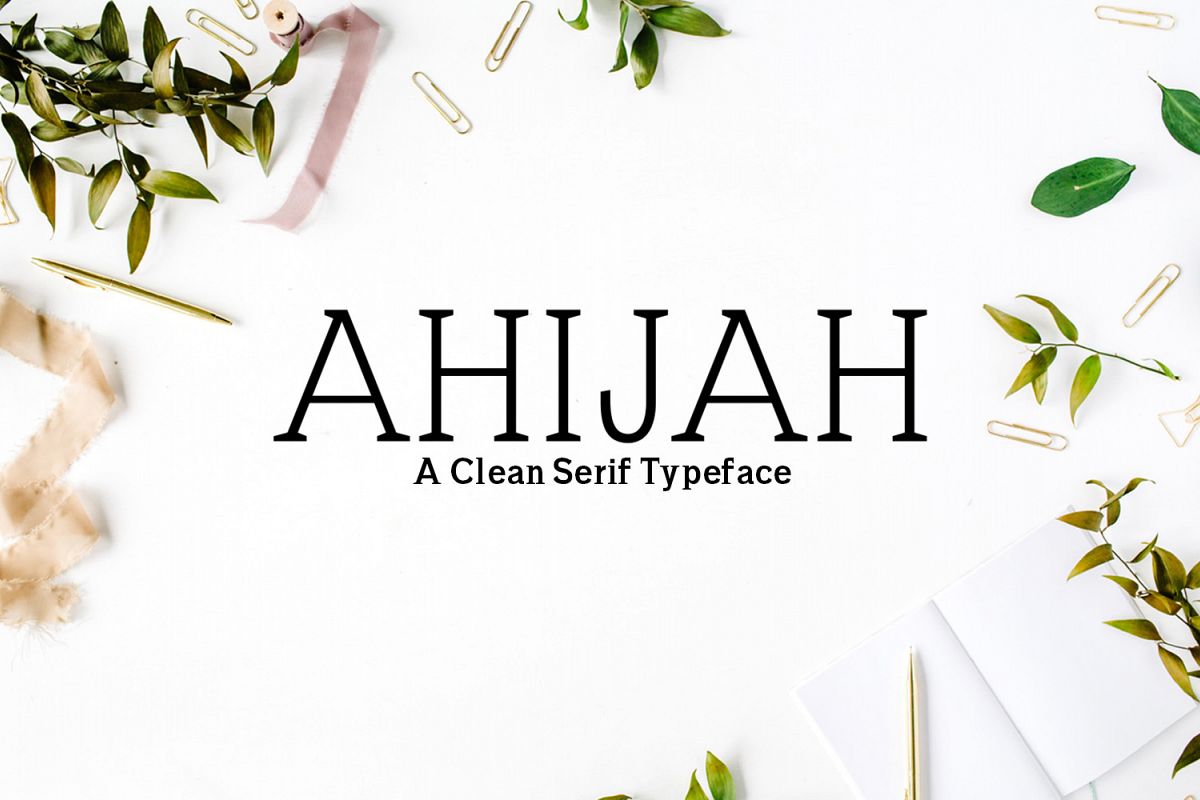
Ahijah A Clean Minimal Serif Typeface
Ahijah A Clean Minimal Serif Typeface is a set of 3 weights font family. It is good for making creative templates and stationary. Ahijah typeface suits best for minimal / decoration, logos, headlines, banners and templates etc.It looks gorgeous in all caps with a wide-set spacing if you want to try a classy look, or beautiful on its own in capital and lowercase letters for something completely timeless.Included Features:
• Regular, Thin and Bold Weights
• Extras: Uppercase Multilingual Letters, Lowercase Multilingual Letters, Numbers & Punctuation + Alternatives.
Ahijah
• Ahijah is a highly versatile Font Family Pack.
• Includes 3 weights
• The perfect choice for Minimal, Decoration & Magazine Titles.
• Great for use on quotes, short phrases, magazines, logotypes and all sorts of advertising.